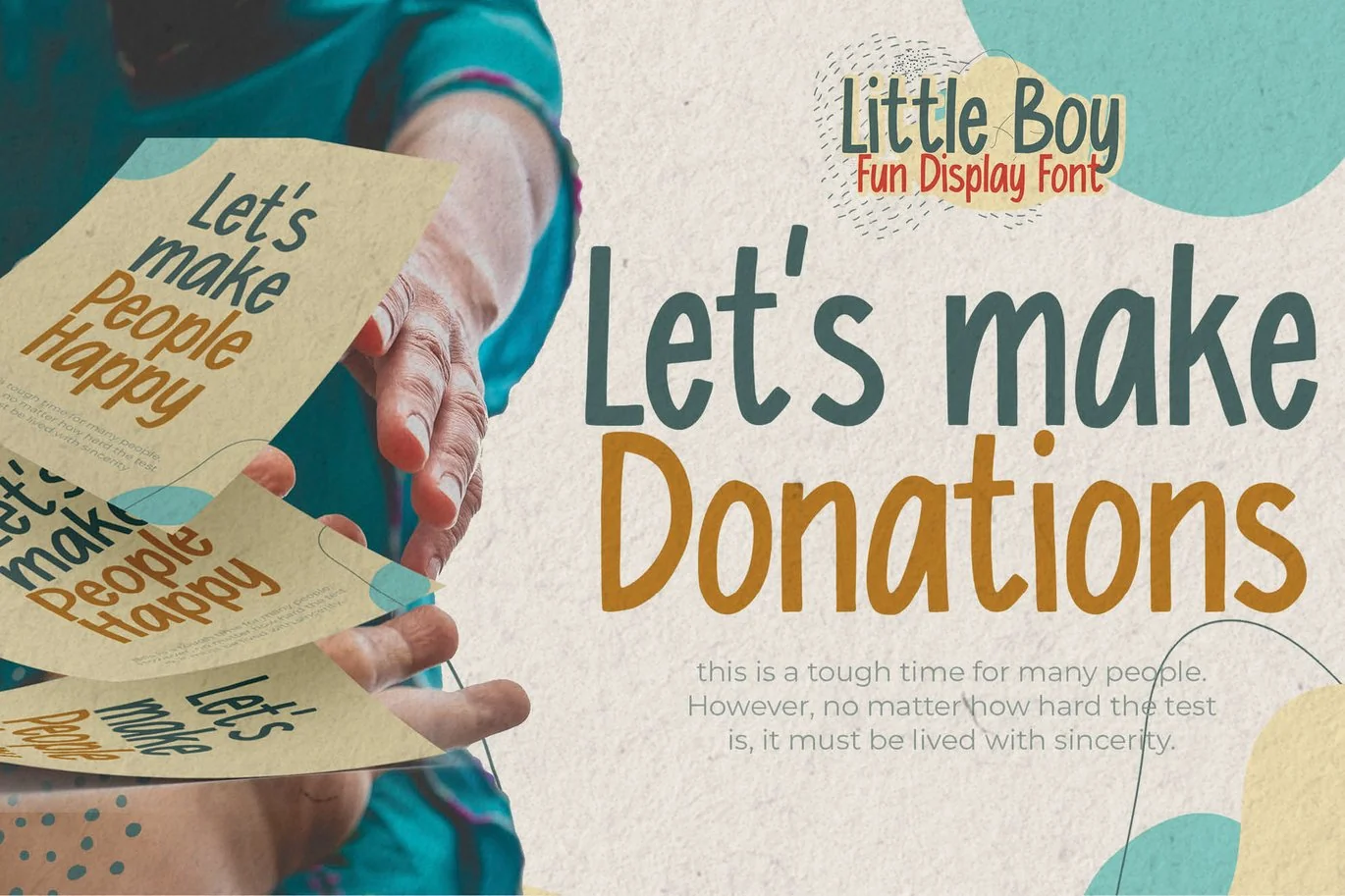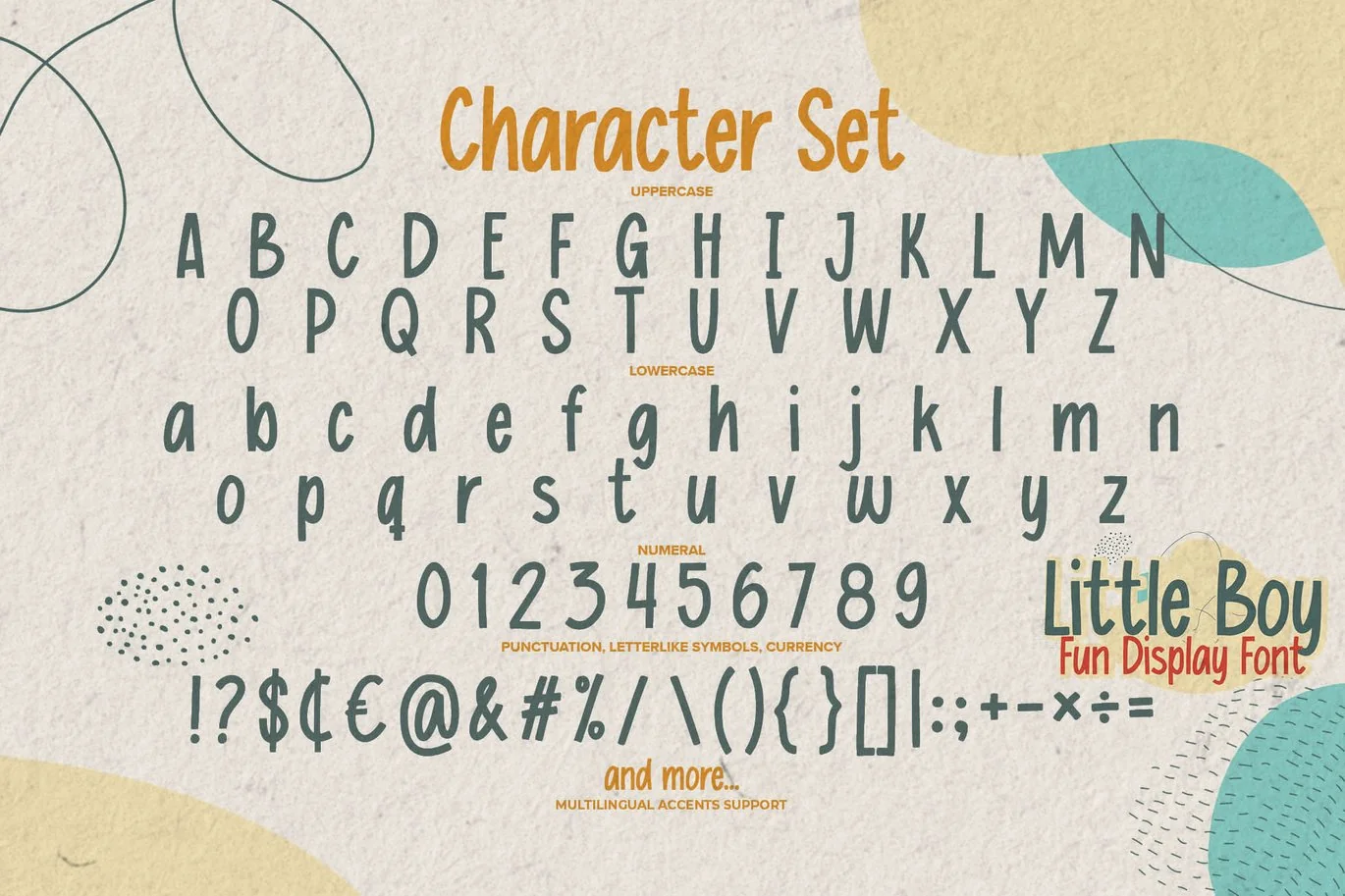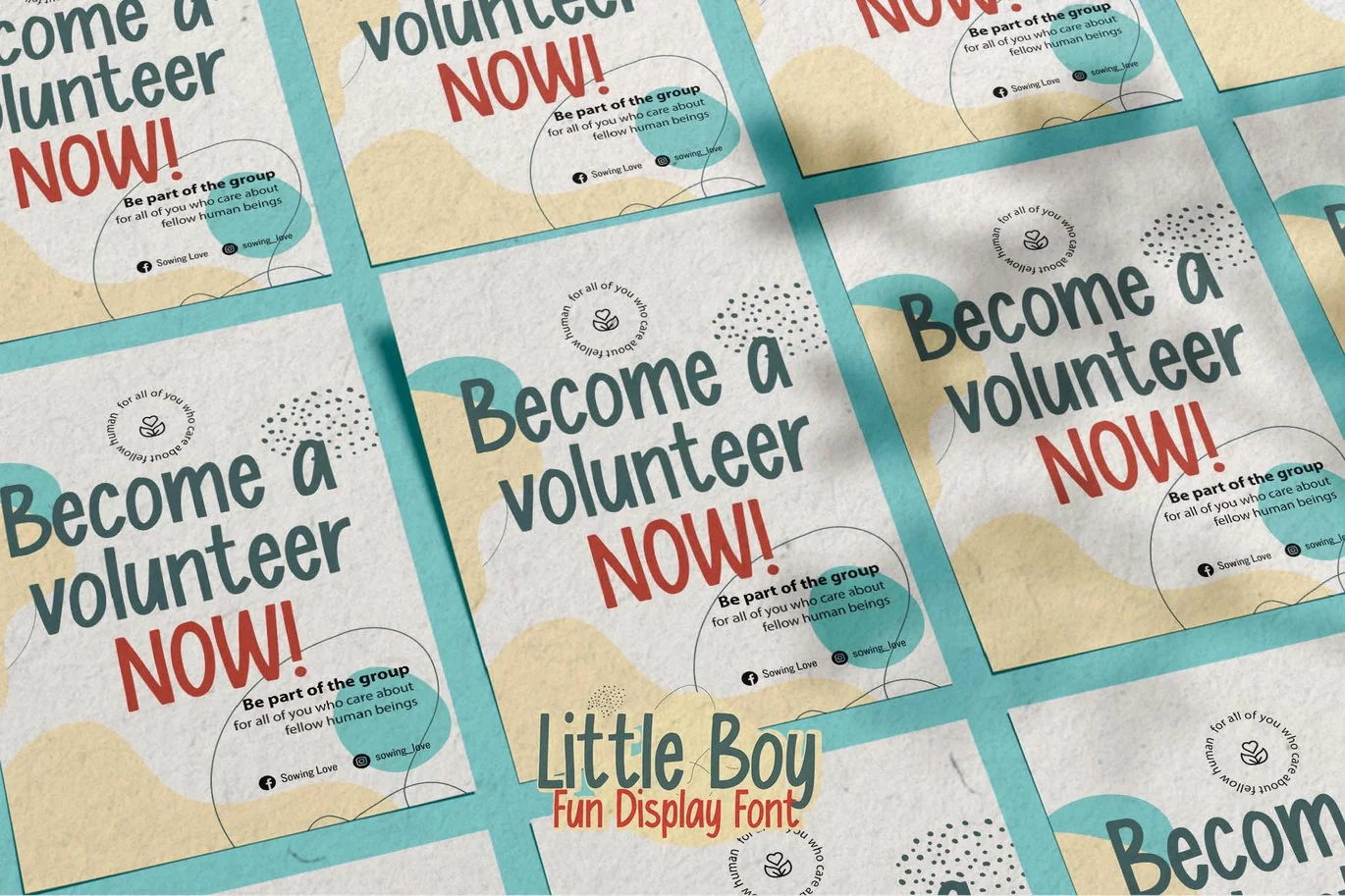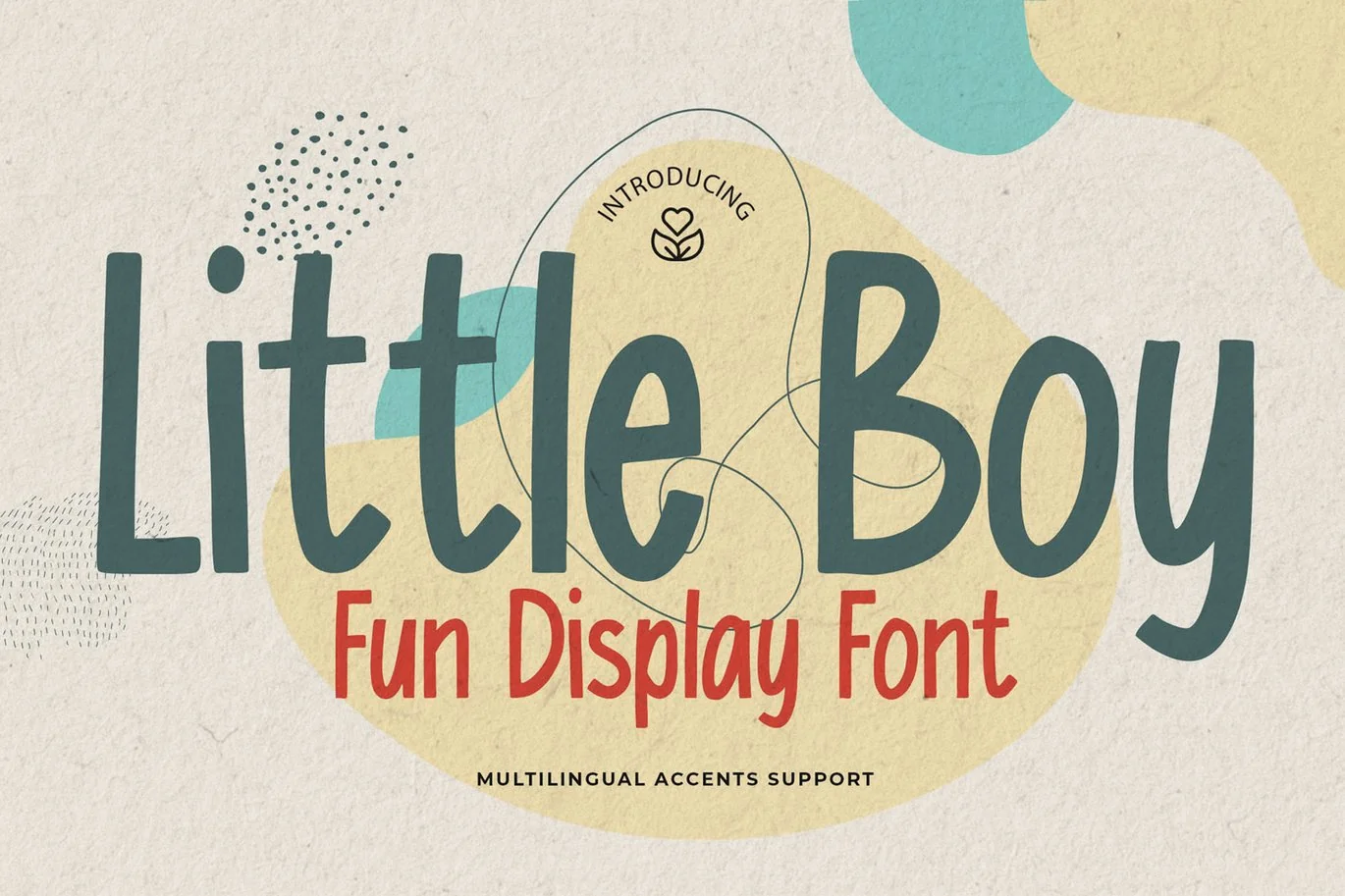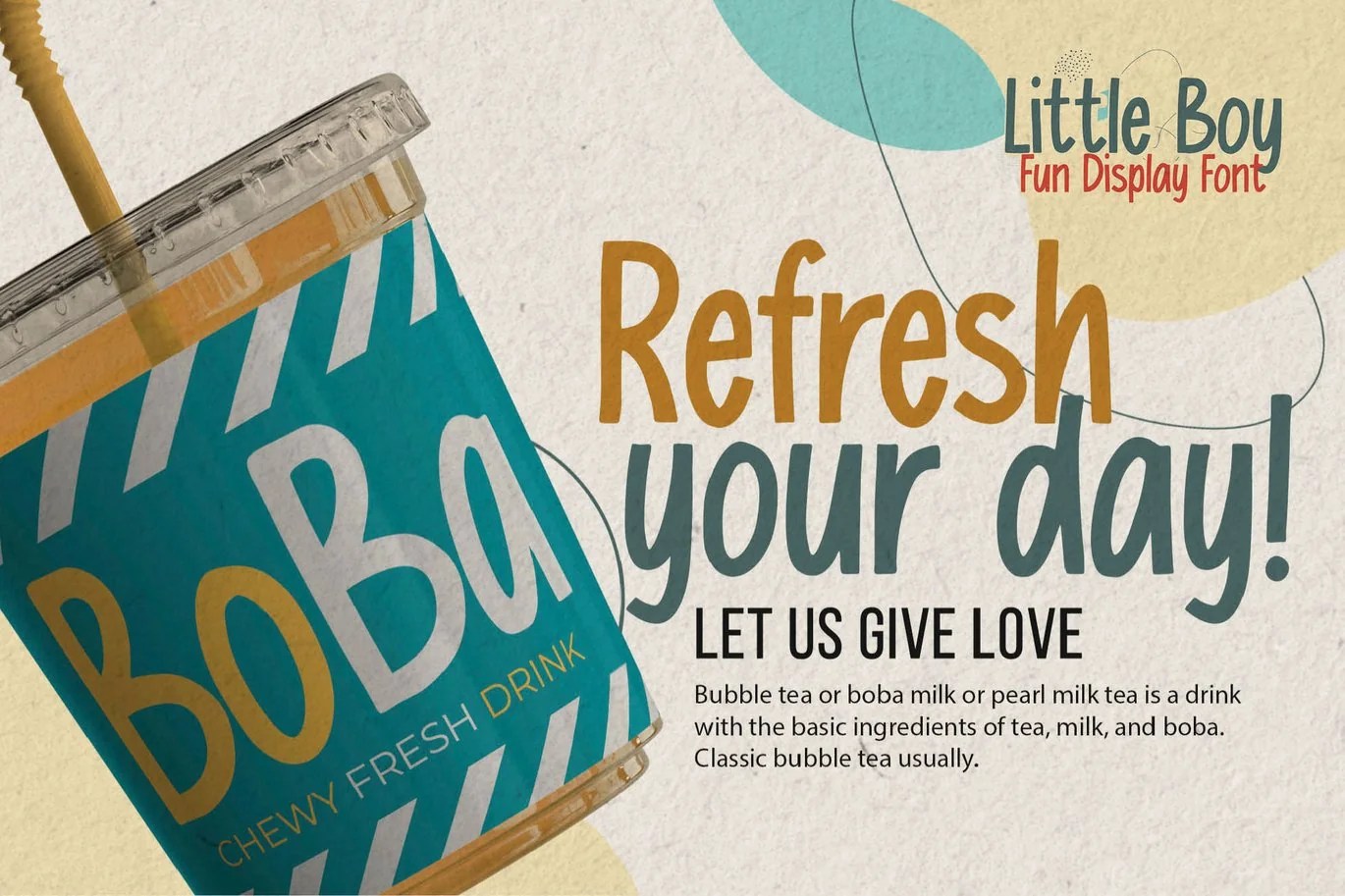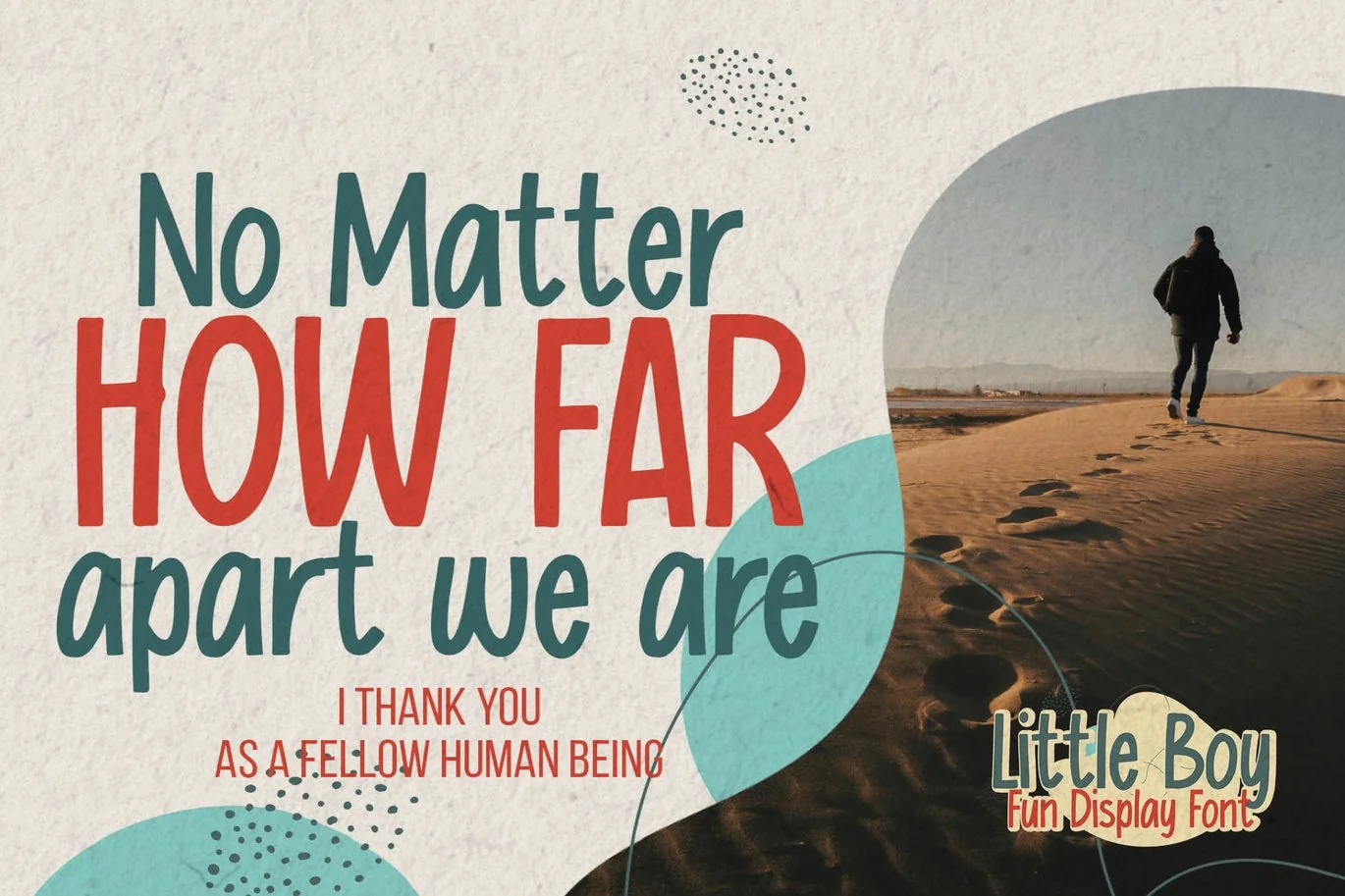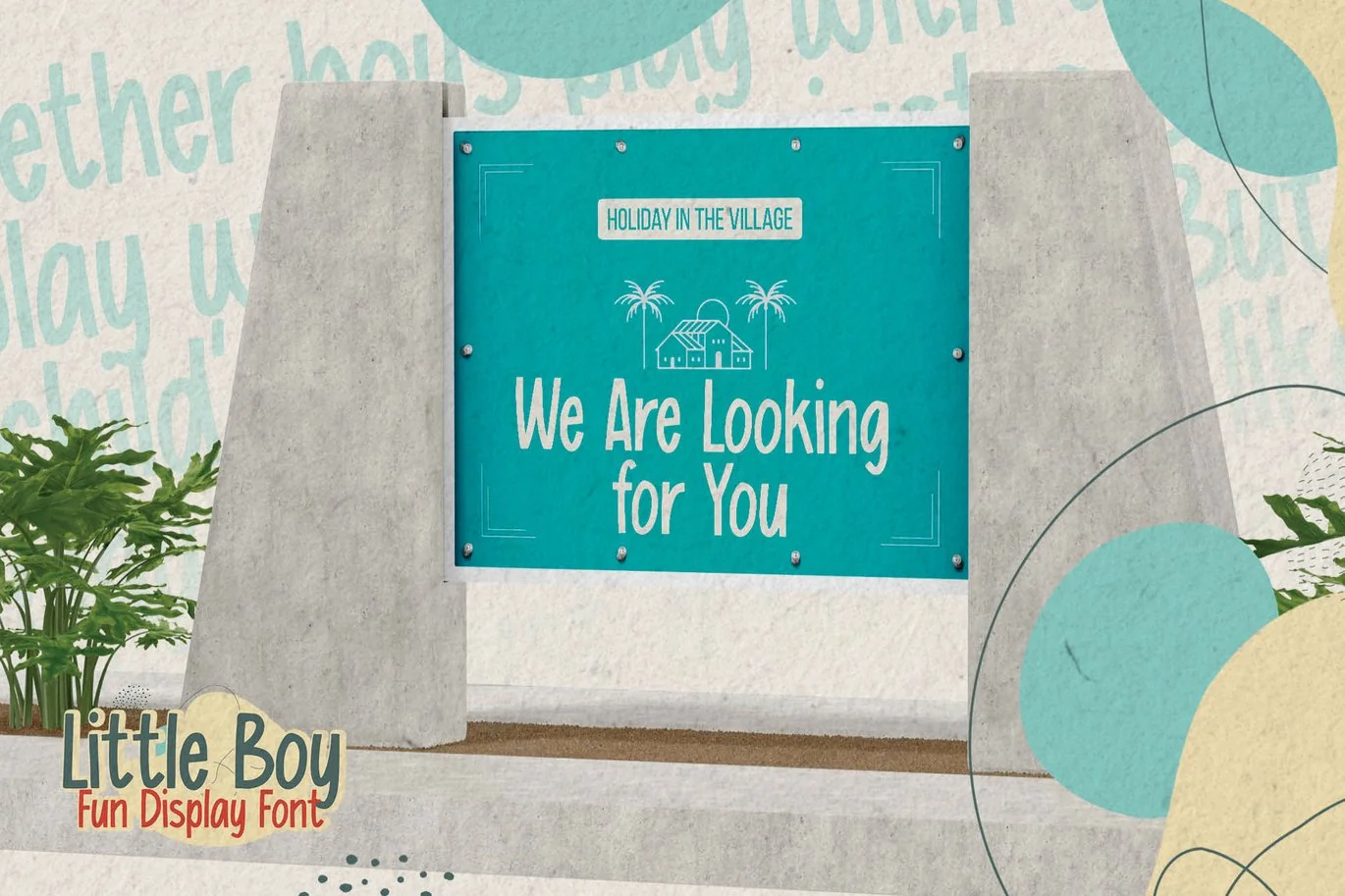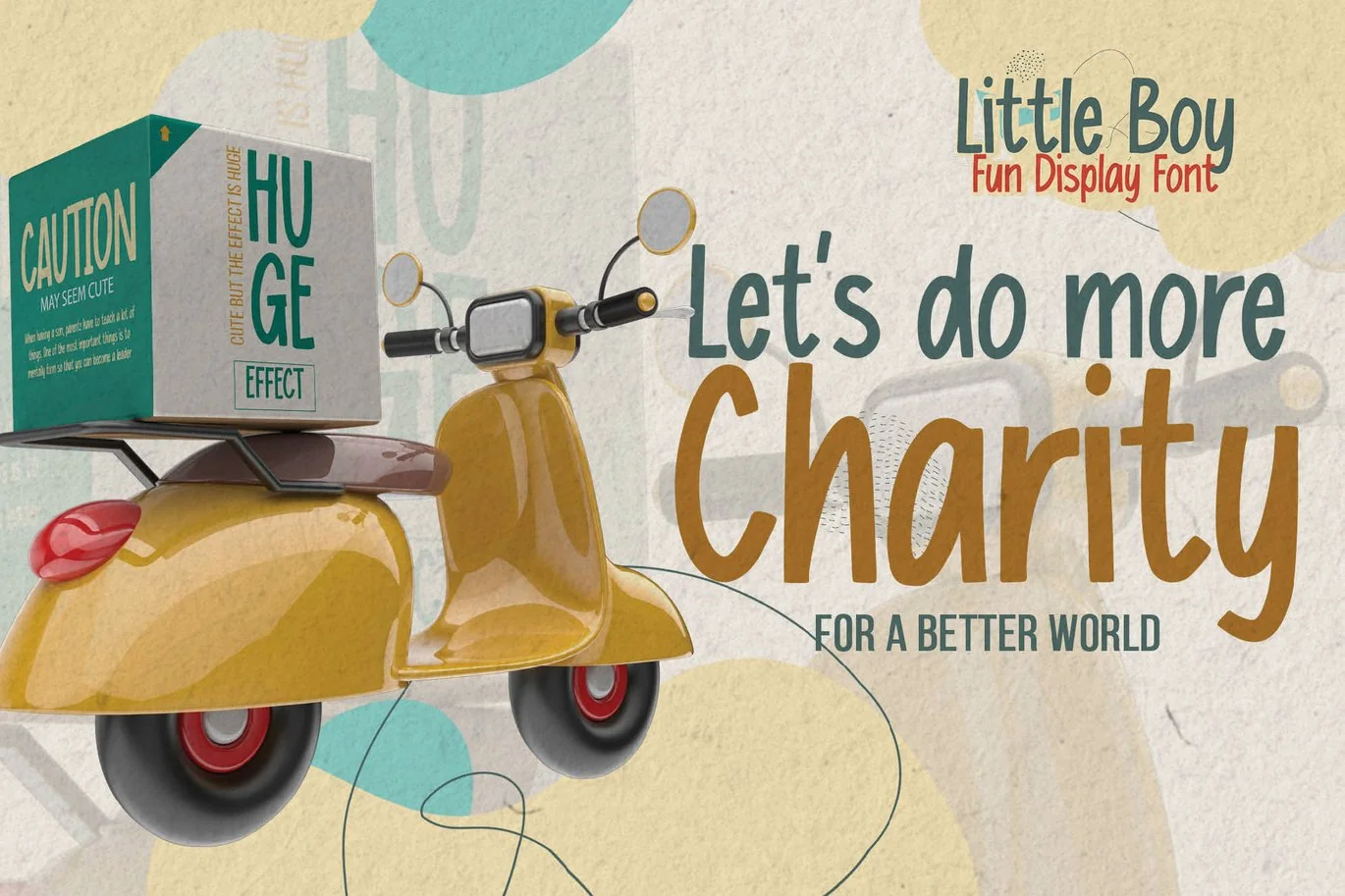
Little Boy – Fun Display Font
Here comes a New font, Introducing Little Boy It’s Fun Display Font is a Cute Craft style and Textured Natural Style , this font is great for your creative projects such as watermark on photography, and perfect for logos & branding, invitation,advertisements,product designs, stationery, wedding designs,label ,product packaging, special events or anything that need handwritting taste.
Little Boy is a natural display Hand Drawn feel. This handmade font will make your design has a beautiful natural touch for each details. It is perfect for any design project as Invitation,logo, book cover, craft or any design purposes,photos, photography overlays, signs, window art, scrapbooking, tags and so much more!
Inspired by Food Logo style and combination with Cute Craft style. that will fulfill your design needs for quotes,sporty theme, logotype, wordmark, etc. This has many opentype features and support multi language.